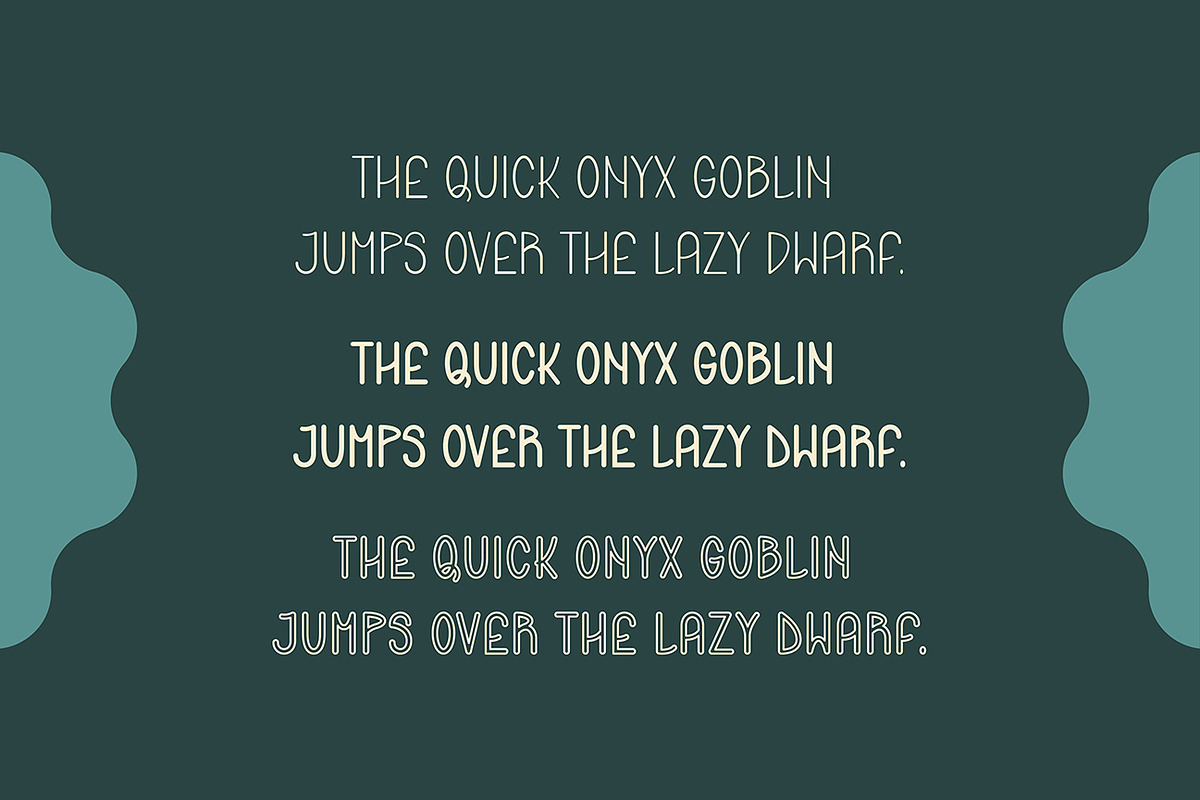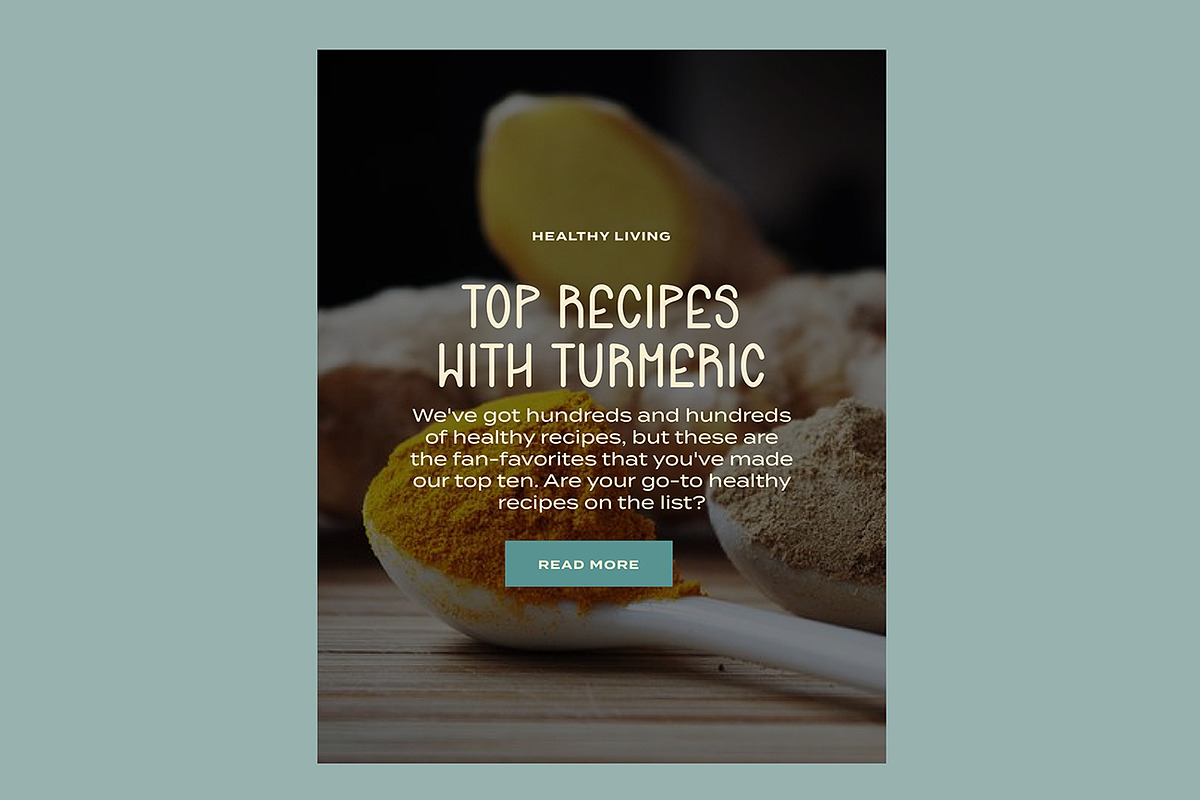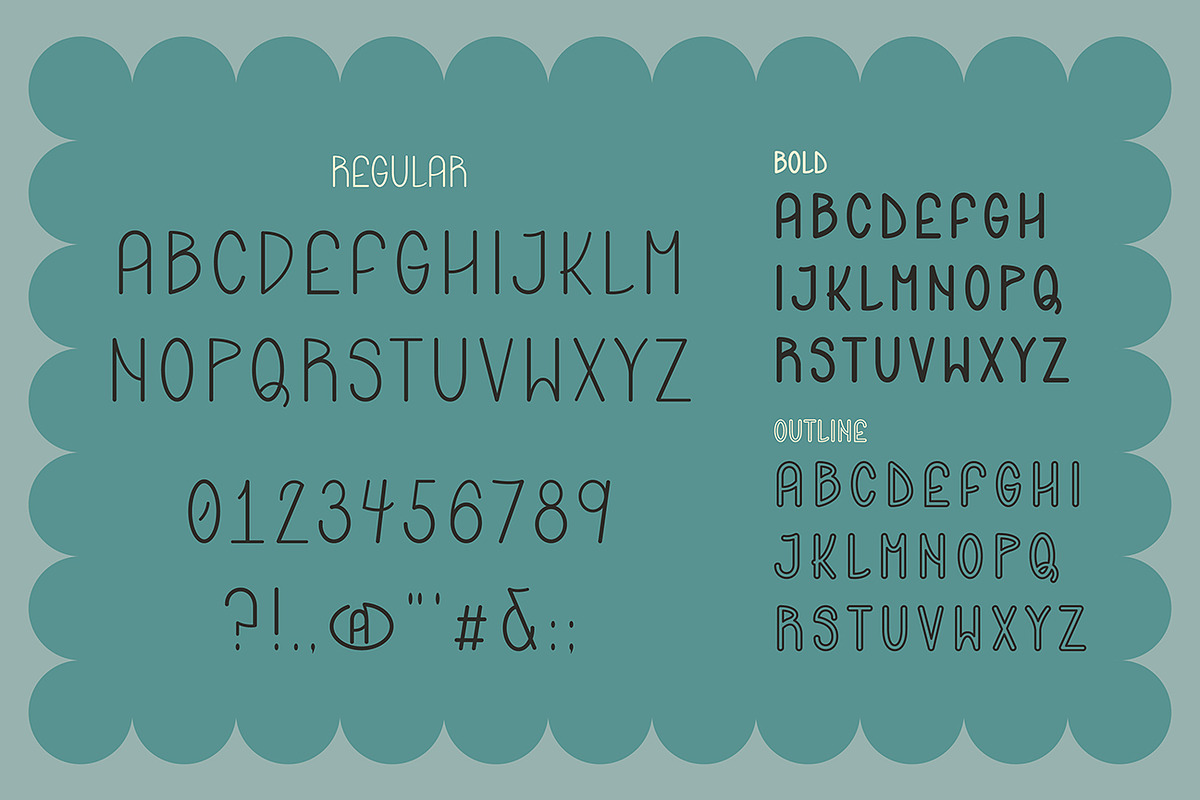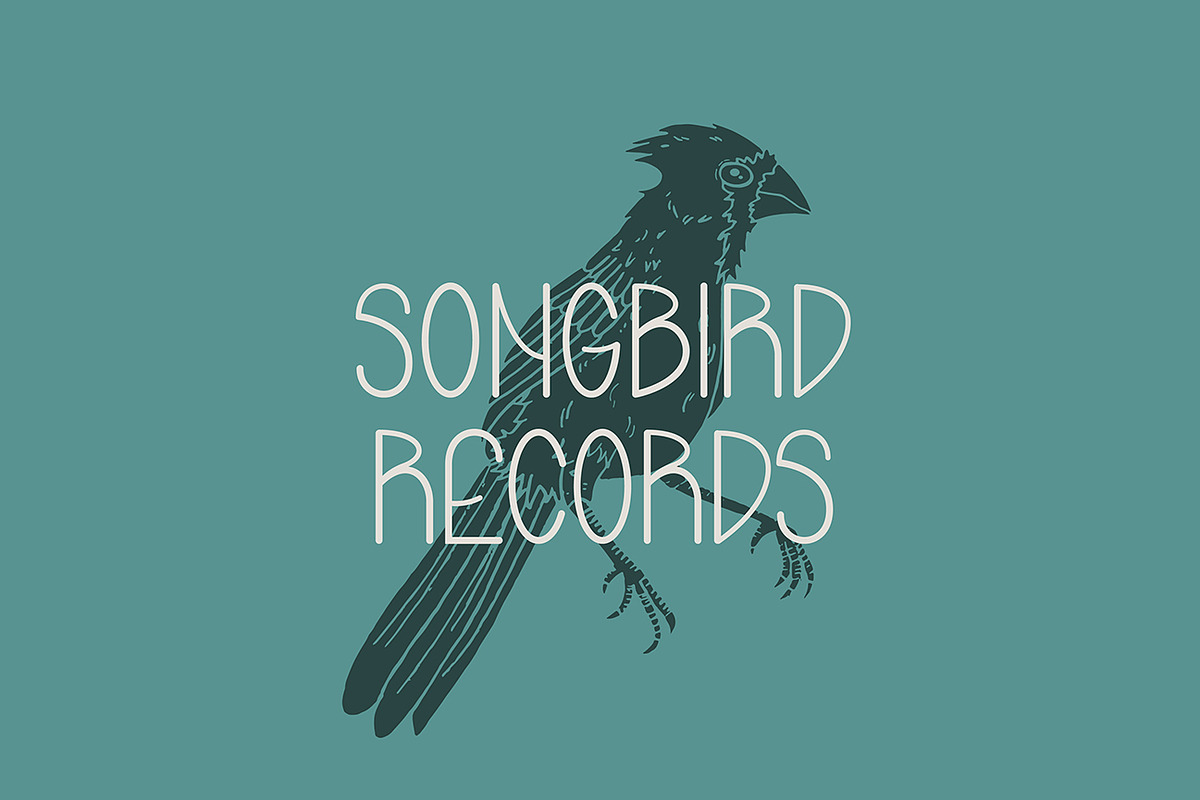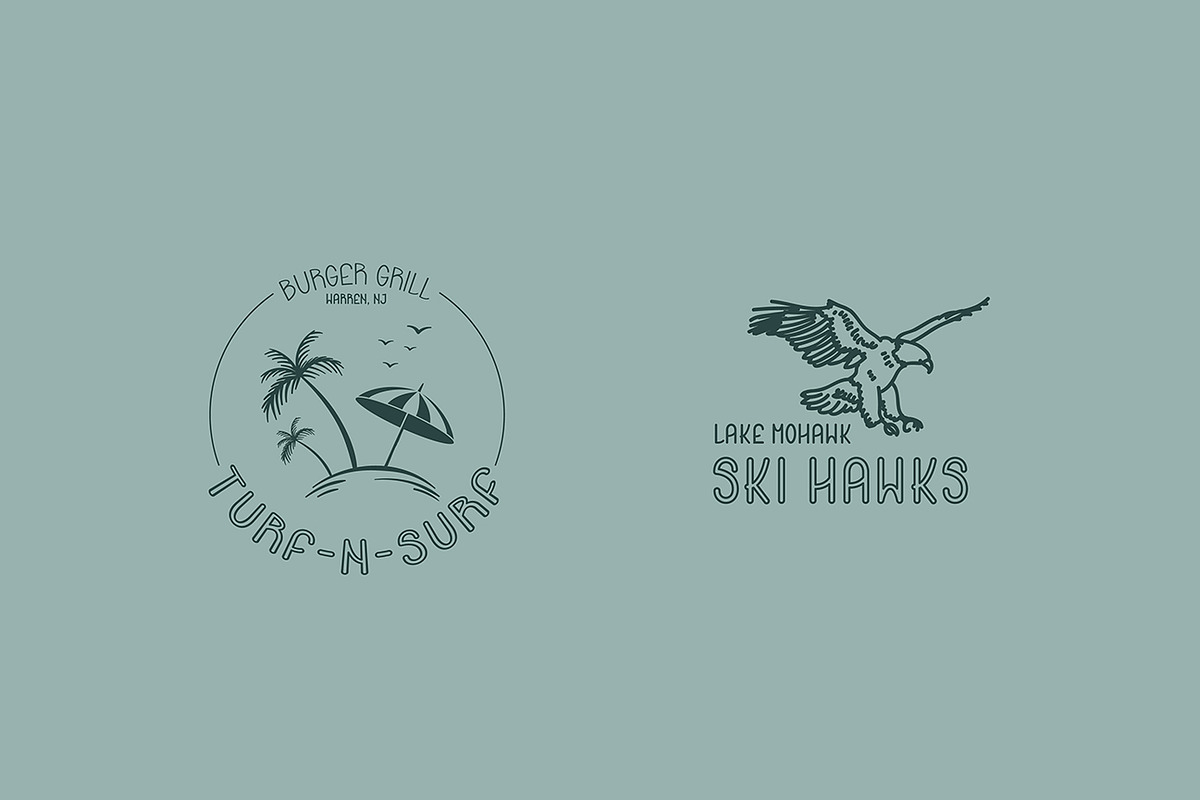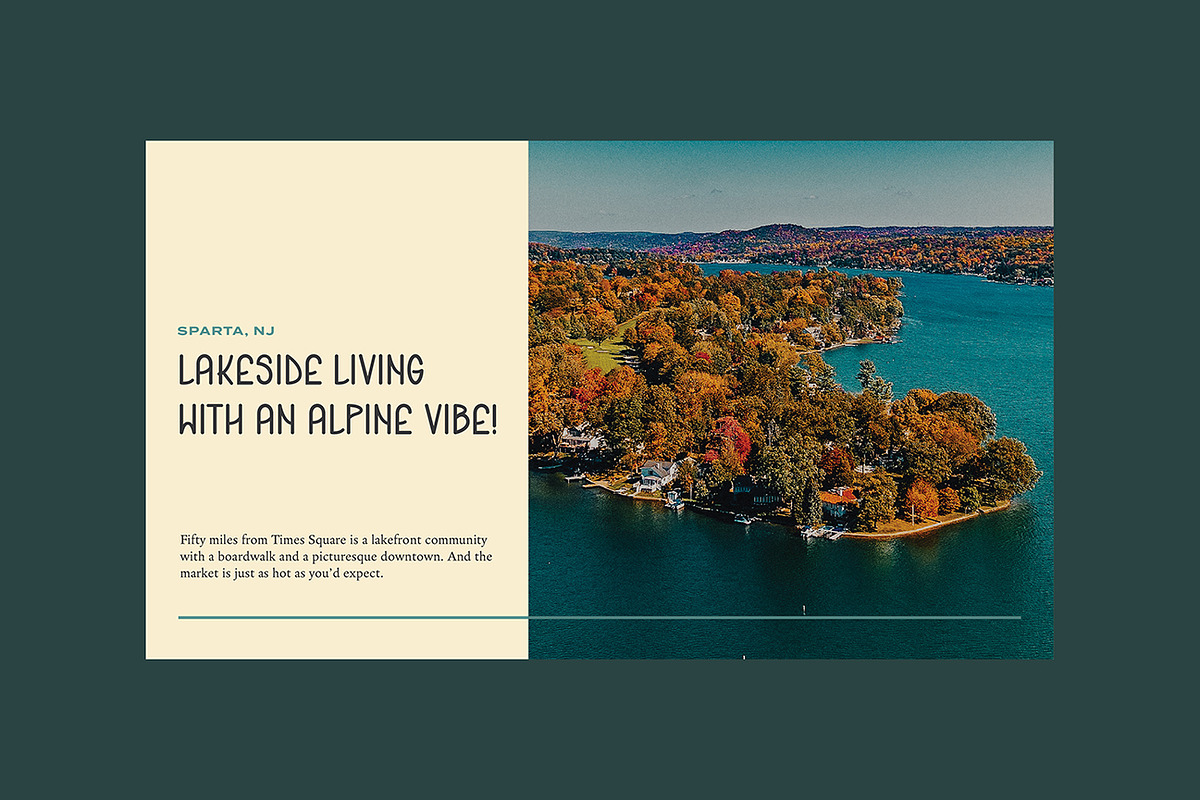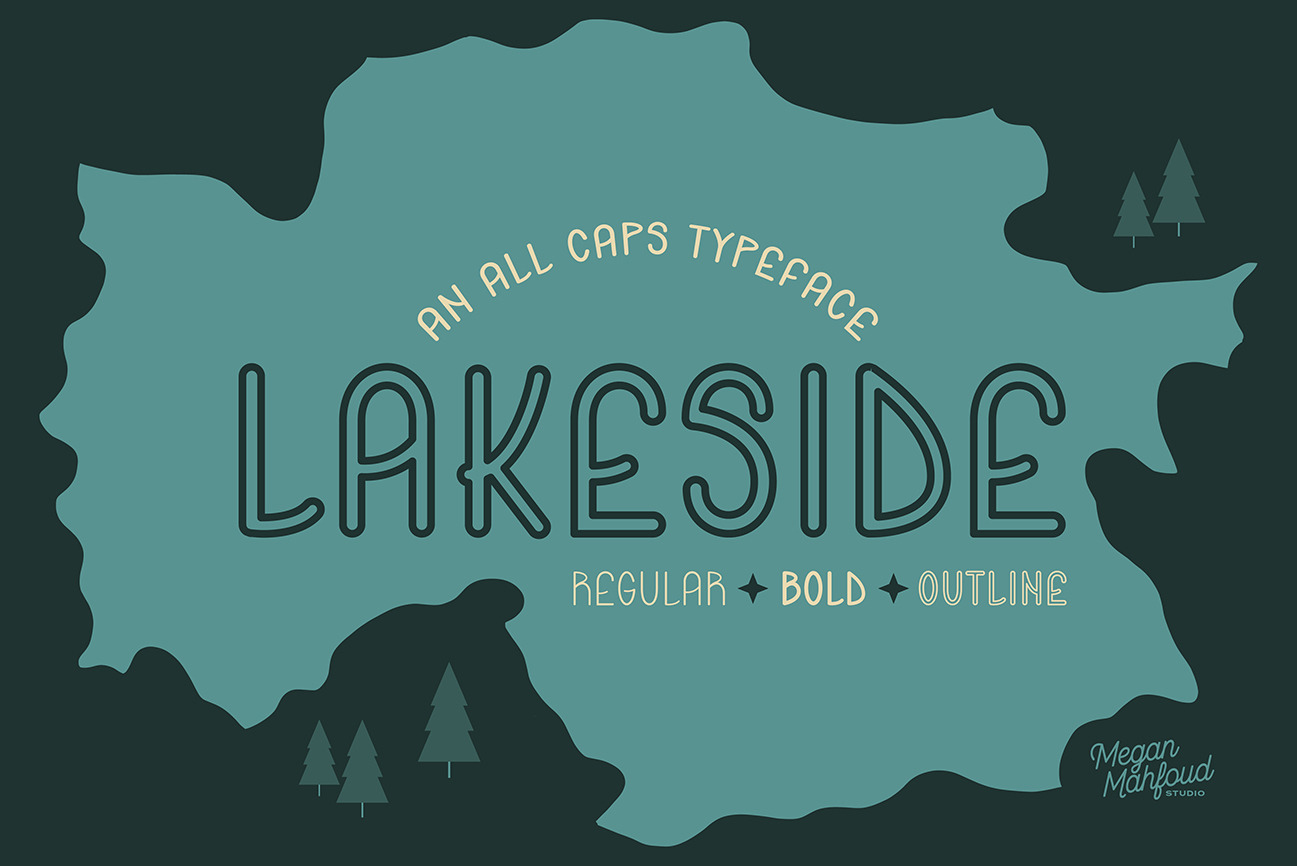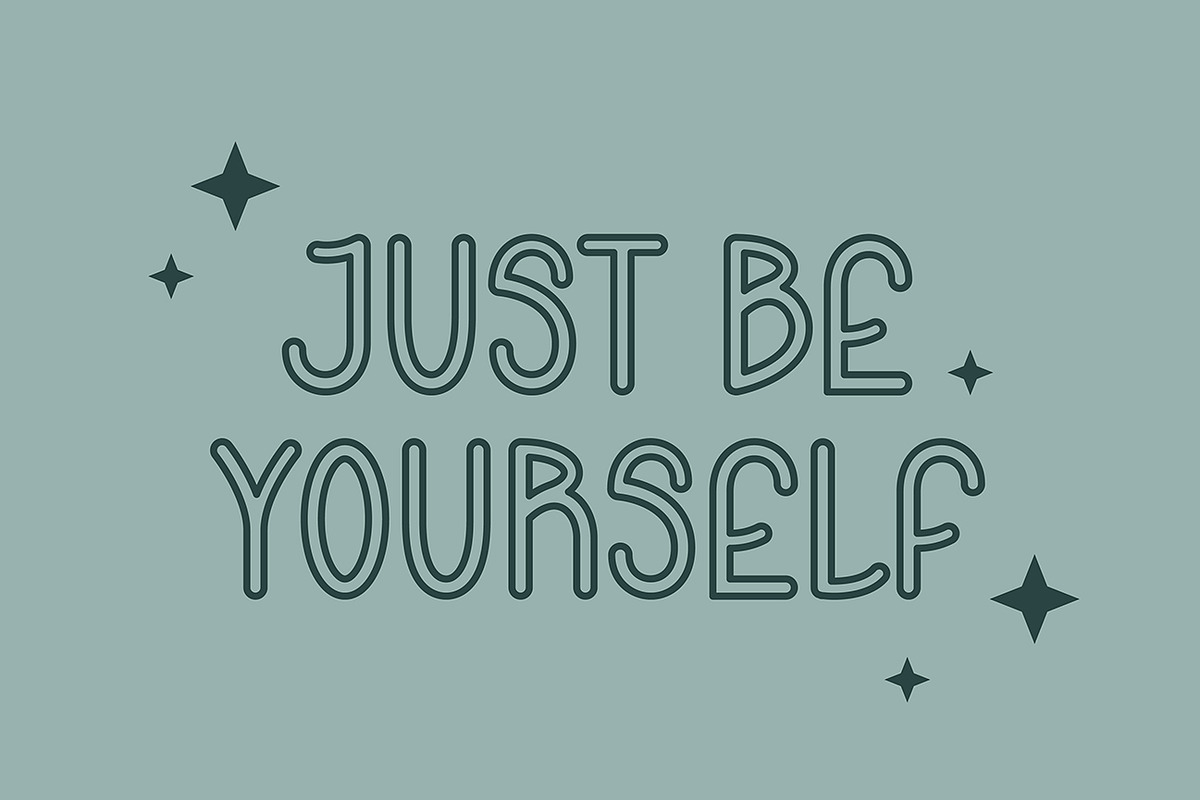
Lakeside: An All Caps Typeface
An all caps display typeface! As someone who lives in a lake community, you find the summer season quite inspiring as you and your fellow neighbors are adventuring in the outdoors with leisure activities. This typeface design is dedicated to the playful, yet slow-living lifestyle of my neighborhood!
This font comes with 3 different weights/styles: Regular, Bold & Outline. It can be used for many different designs, whether it be branding or editorial layouts. It’s the type of font to just have fun with!